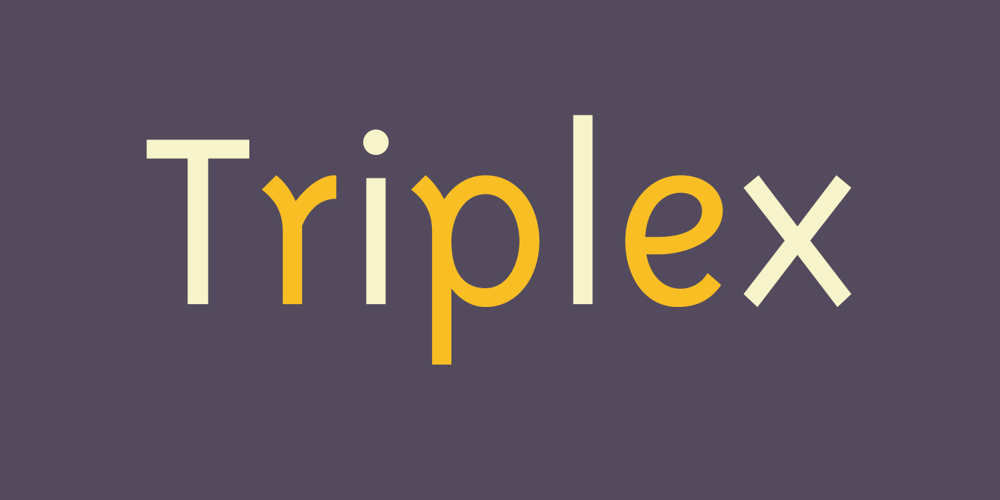
Triplex
Triplex font
Triplex Font Family was designed by Zuzana Licko and published by Emigre. Triplex contains 10 styles and family package options. Although initially designed as a rational/geometric font, Triplex developed into one of Zuzana Licko’s most intuitive typeface designs at the time. Its first extensive use was in Emigre magazine #14, a special issue devoted to Swiss designers published in 1990. Triplex was intended as a friendly substitute for Helvetica. The name Triplex refers to the three versions that make up the entire family; Triplex, Triplex Serif and Triplex Italic. Each version of the typeface comes in light, bold and extra bold. The italic was designed and drawn by type designer and sign painter John Downer, and was designed to work with both the serif and sans serif versions. See also Triplex Italic OT.